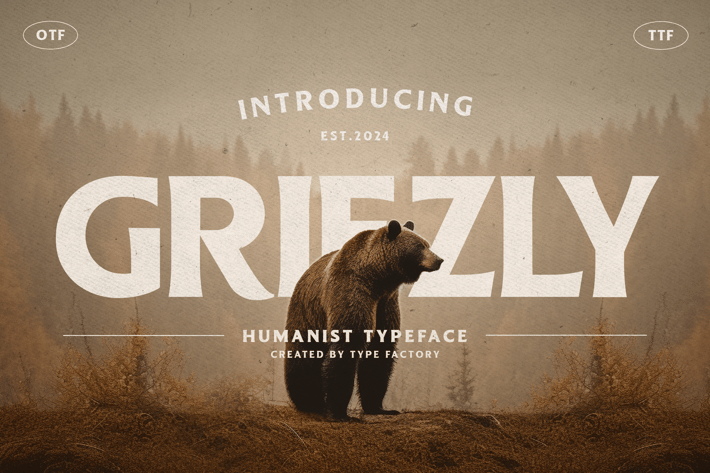
Griezly - Humanist Typeface
Griezly is a humanist serif typeface that combines warmth with precision, offering a perfect balance between readability and personality. With its smooth curves and open letterforms, Griezly is ideal for branding, editorial design, user interfaces, and corporate communications. This typeface brings a friendly and approachable vibe to your projects while maintaining a professional and modern aesthetic. Griezly’s versatility makes it a reliable choice for both print and digital media, ensuring your designs are clear, engaging, and inviting.
– Lowercase
– Ligature
– Multilingual Support
– Lowercase
– Ligature
– Multilingual Support